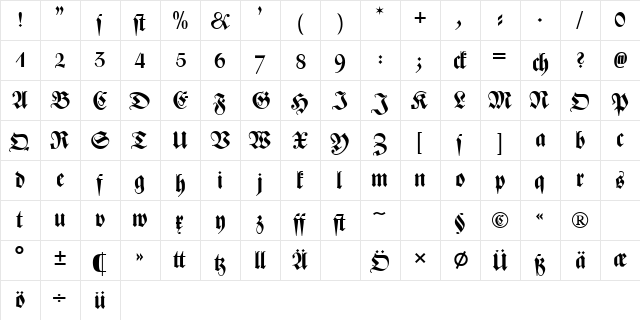
Zentenar-Fraktur Halbfett OsF Medium
Design Context for Zentenar-Fraktur Halbfett OsF Typeface
Zentenar-Fraktur Halbfett OsF draws on the rich tradition of blackletter calligraphy, with dense, angular strokes that evoke medieval manuscripts and old-world craftsmanship.
A natural fit for music packaging, gothic editorial design, and any project that needs historical weight.
Font Pairing: Pair with a clean neutral sans-serif for body copy to let Zentenar-Fraktur Halbfett OsF's character lead without overwhelming the composition.
Pro Tip: Reserve Zentenar-Fraktur Halbfett OsF for display and logo use — pair it with a clean sans-serif for body copy to prevent the composition from feeling oppressive.